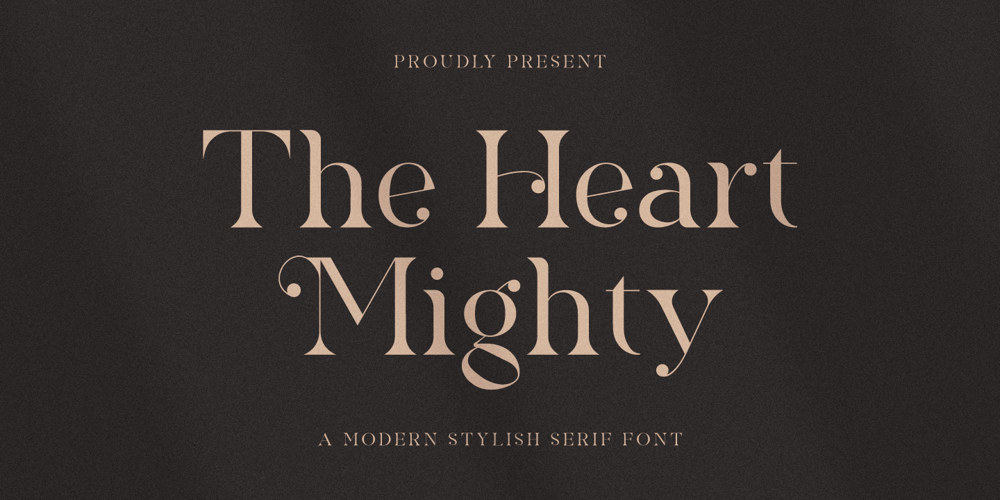
The Heart Mighty
The Heart Mighty font
The Heart Mighty Font Family was designed by Hayinah and published by Rockboys Studio. The Heart Mighty contains 1 styles and family package options. The Heart Mighty is a delicate and elegant serif font. You can use this modern serif font with ligature & stylistic set for fashion, magazines, cooking websites, quotes, social media posts, labels, and many more! Add it confidently to your favorite creations and let yourself be amazed by the outcome generated.